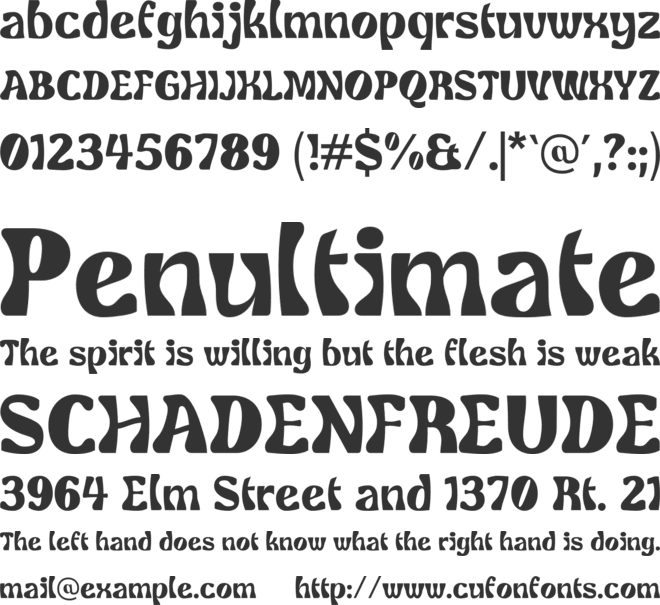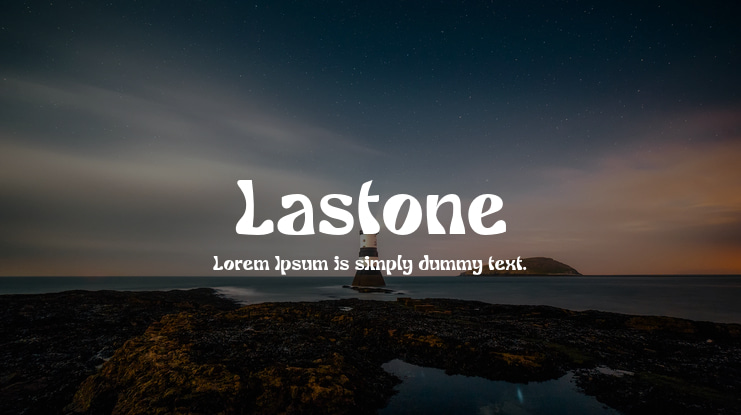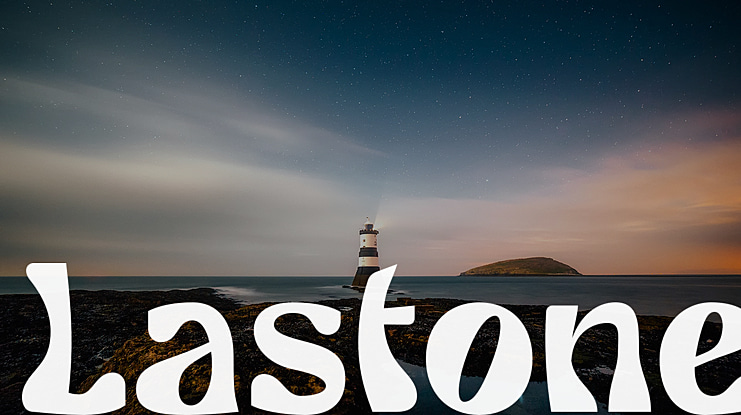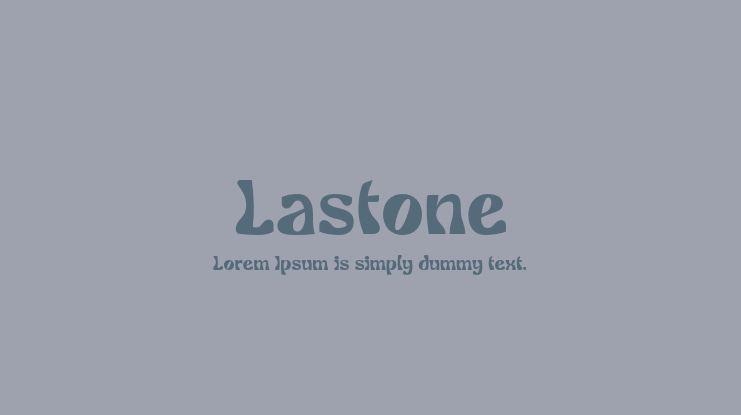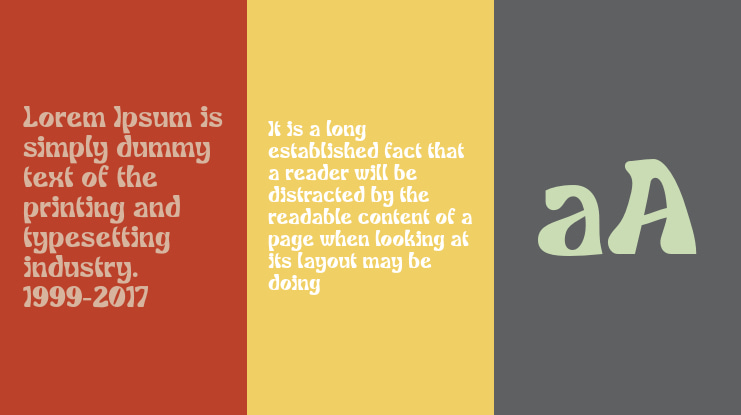
Lastone Font
This is a modern display typeface with a unique and classy style. Made from font designer named Drizy. It has a modern and vintage look. This font is suitable for t-shirts, sweaters, mugs, and other printed products. other than that this font is suitable for Cricut craft.